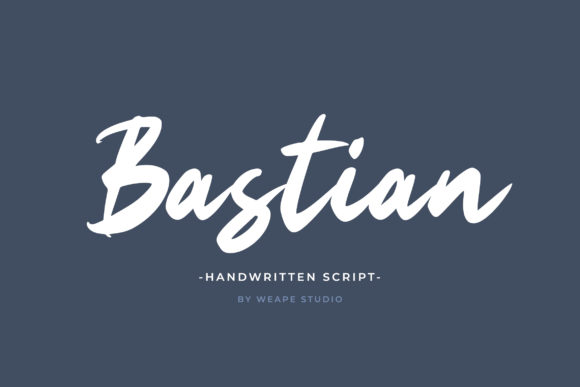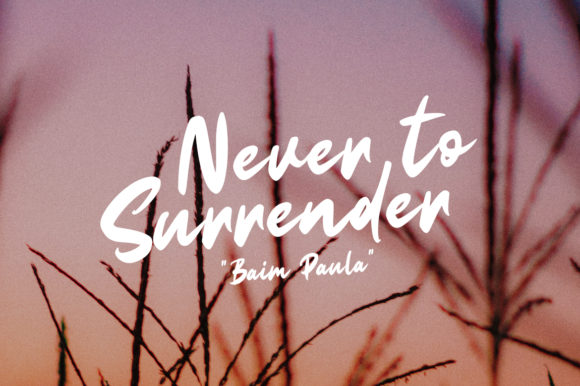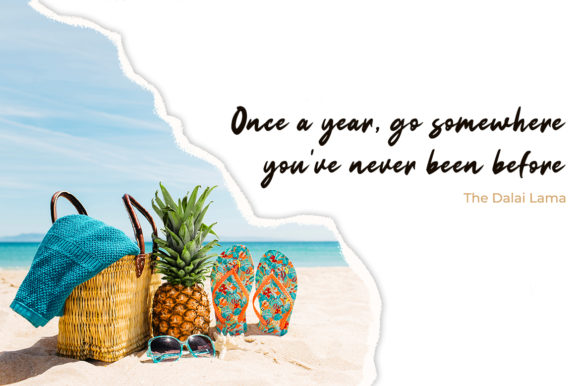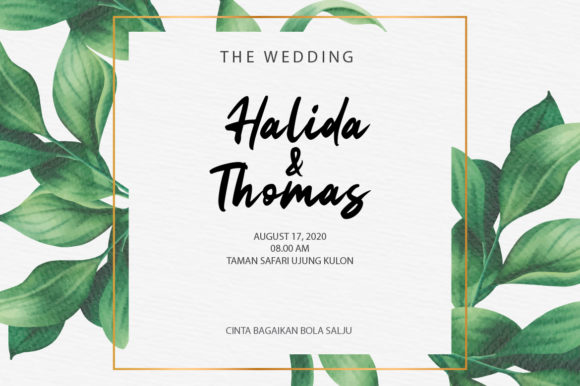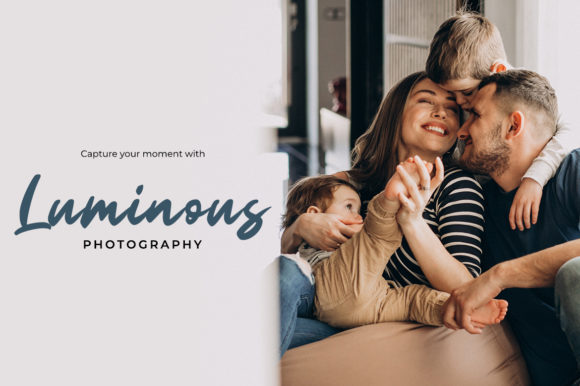
About Bastian Font
Bastian: A Charming and Authentic Handwritten Font
Meet Bastian, a font born from the stunning pairing of a brush pen and pencil, resulting in an endearing and authentic appearance. This gorgeous and unique handwritten font is your perfect companion to breathe life into any DIY project!
The allure of Bastian lies in its charming blend of brush pen and pencil strokes, giving your designs an irresistible and genuine quality. Each letter is crafted with love, creating a font that feels warm and approachable.
Designing with Bastian is a joyful experience. Its authenticity and uniqueness add a touch of handcrafted beauty to your projects, making them feel personal and heartfelt.
Bastian is your creative ally for any DIY endeavor. Whether you’re working on handmade cards, crafty posters, artistic quotes, or personalized gifts, this font infuses your creations with an enchanting appeal.
Unleash your creativity with Bastian. Its versatility allows you to explore endless possibilities and design projects that truly reflect your passion and personality.
Embrace the magic of Bastian’s endearing charm. It brings a sense of authenticity and genuine beauty to your designs, making them stand out and capture hearts effortlessly.
In conclusion, Bastian is not just a font; it’s an enchanting invitation to embrace creativity and craftsmanship. With its charming blend of brush pen and pencil, Bastian opens the door to limitless creative possibilities. Use it to infuse your DIY projects with love and authenticity, bringing them to life in a way that captivates and inspires. For designs that exude charm and warmth, Bastian is the font that elevates your creativity and makes every project a heartfelt masterpiece. Let Bastian be your creative companion, and together, let’s create magic that leaves an everlasting impact!